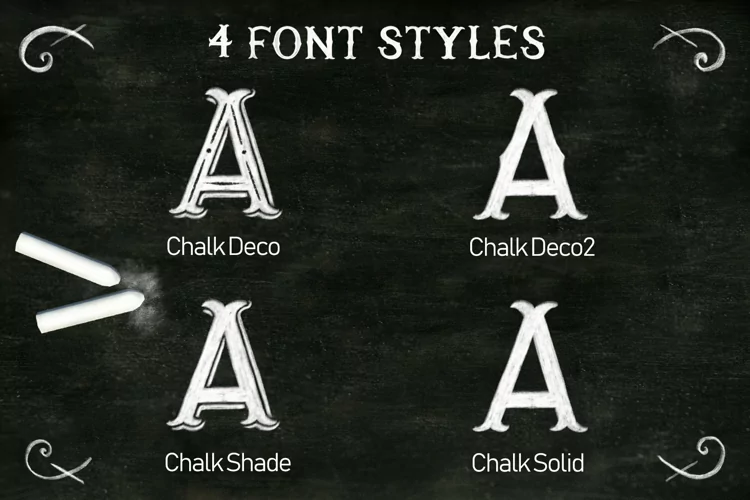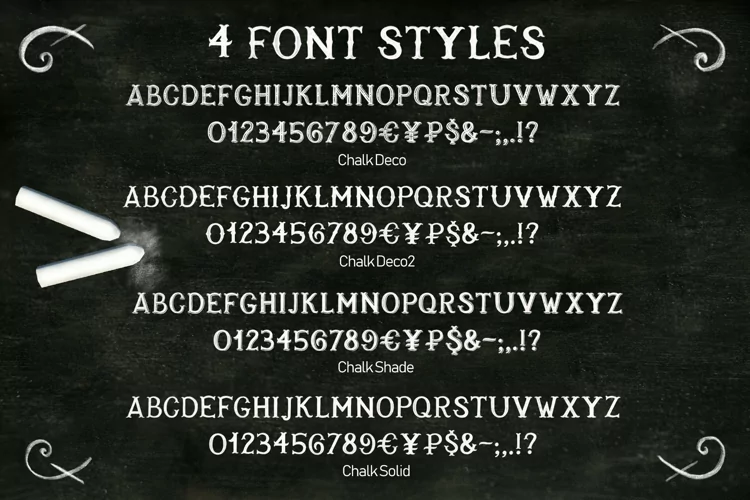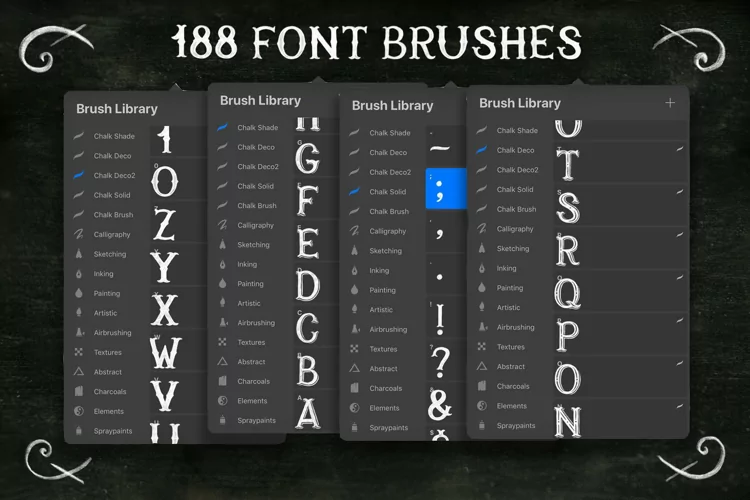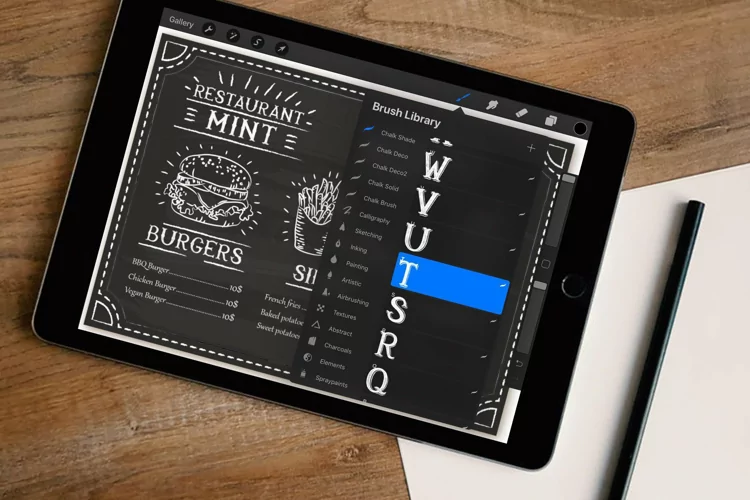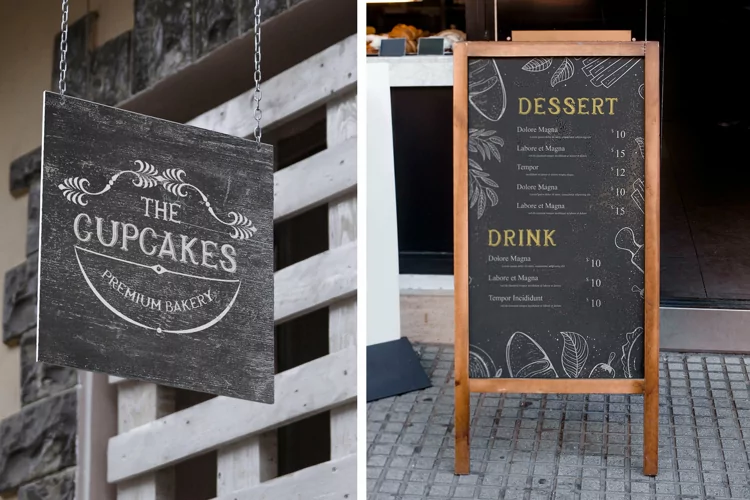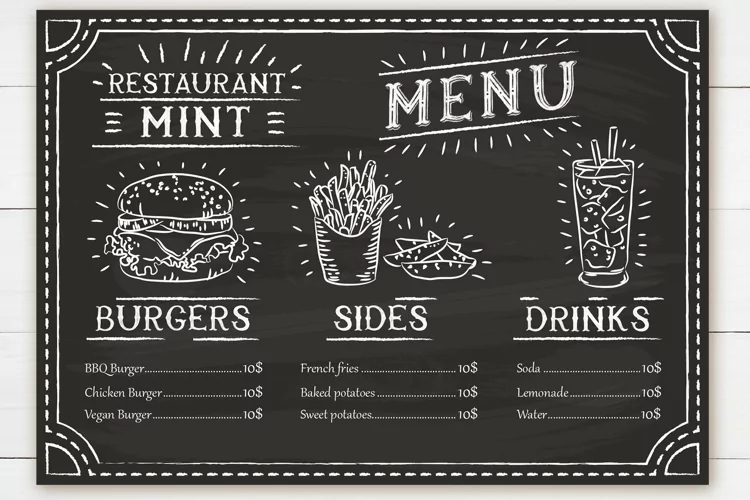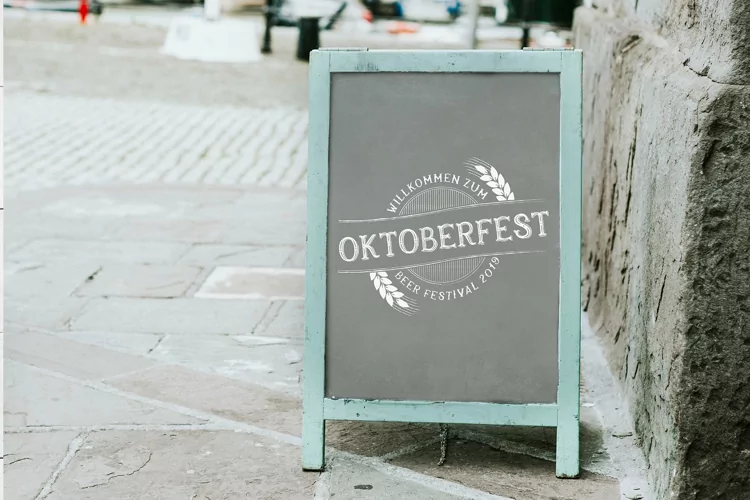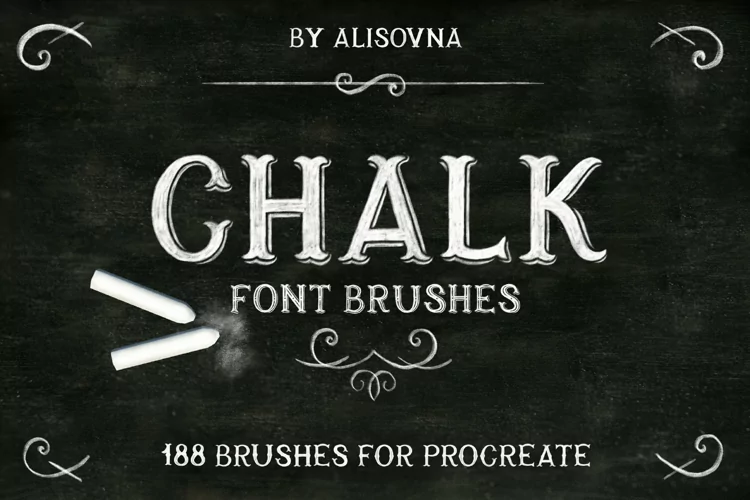
Procreate Chalk Font Brushes: Instant Creativity Awaits!
Bring your designs to life with the Procreate Chalk font brushes! This delightful digital download gives you instant access to a unique set of brushes tailored for the Procreate app. Perfect for crafting stunning chalk-style lettering, these brushes make it easy to create beautiful typography with just a tap. 🎨✨
- 188 Unique Brushes: Enjoy 4 font styles with 47 letters each, allowing for endless creative possibilities!
- Lettering artists looking to create beautiful chalk typography.
- Graphic designers wanting to add a playful touch to their projects.
- Anyone interested in exploring chalk lettering techniques in Procreate!